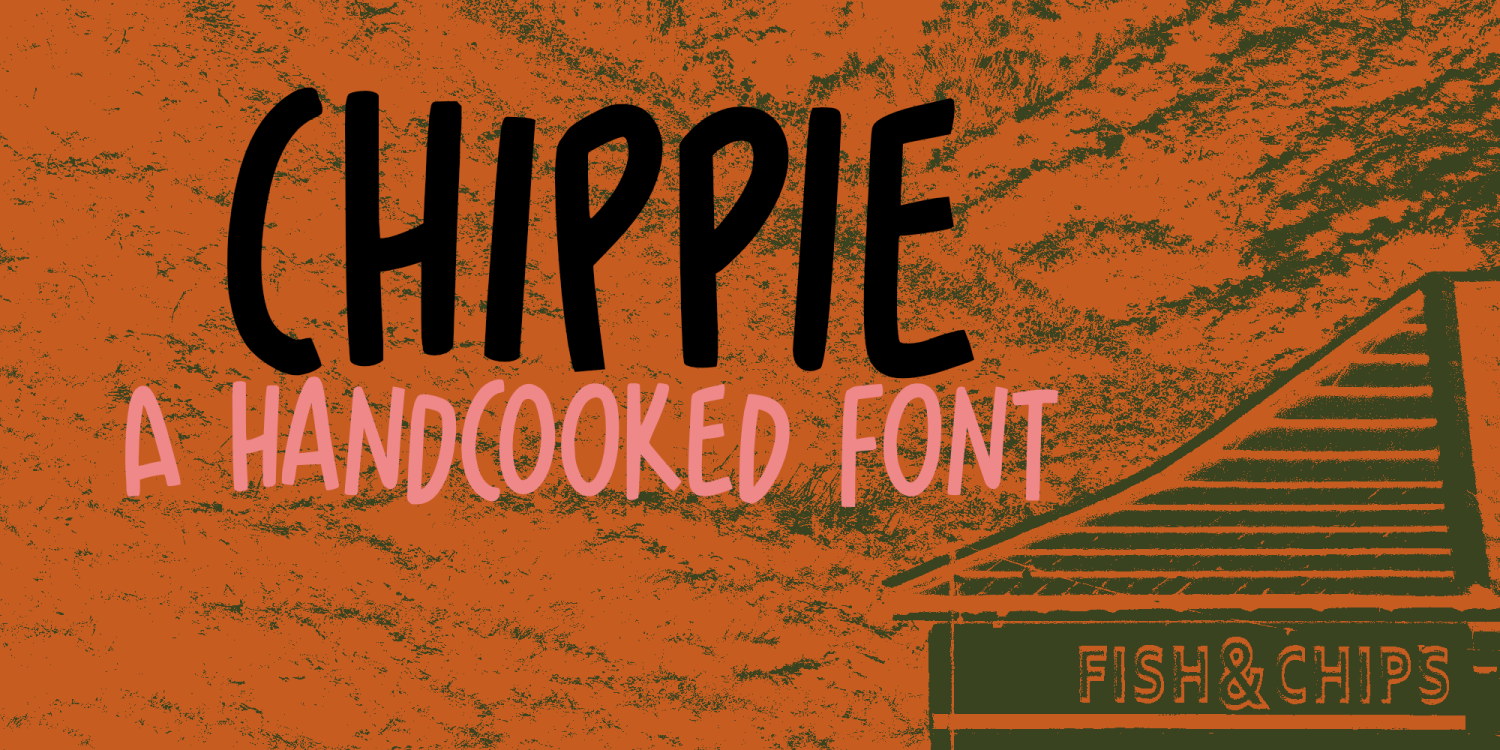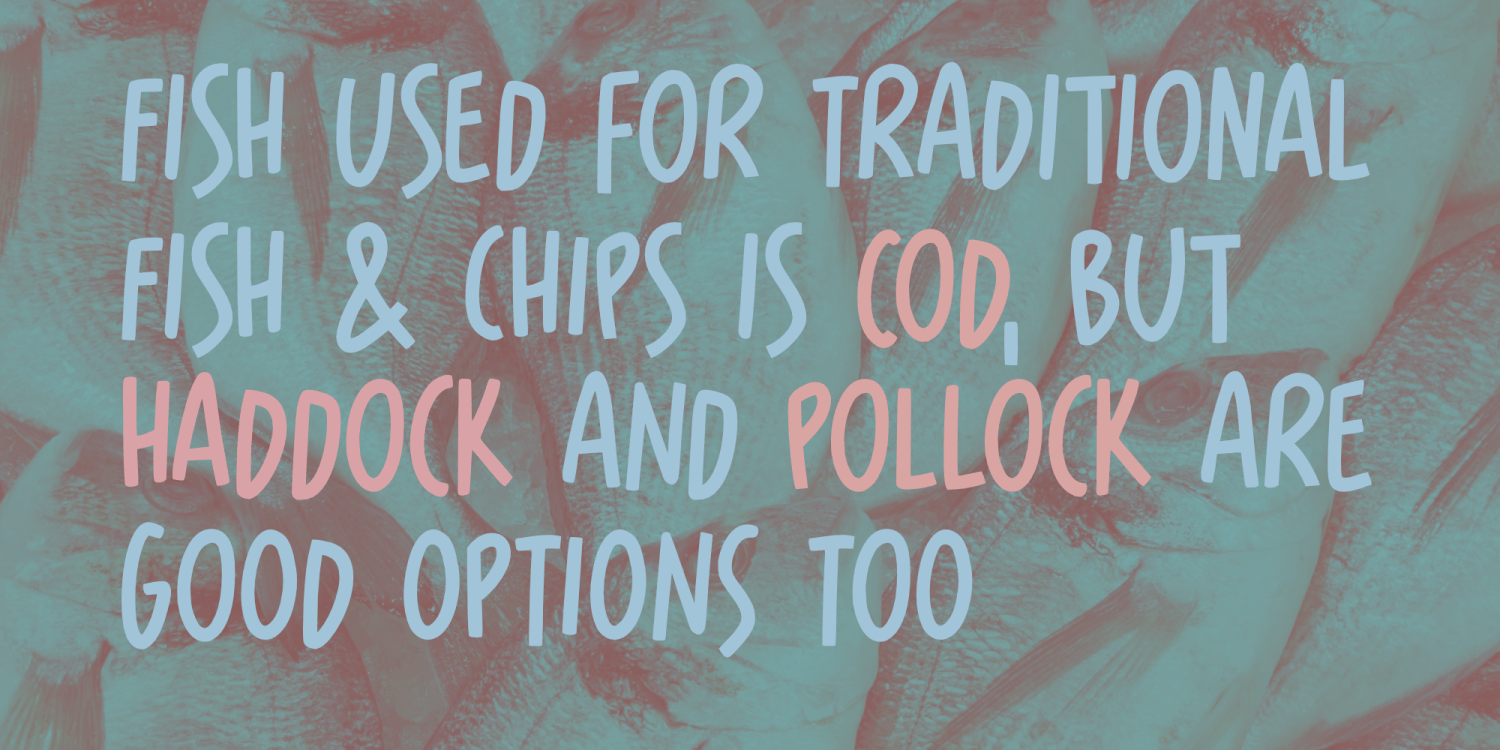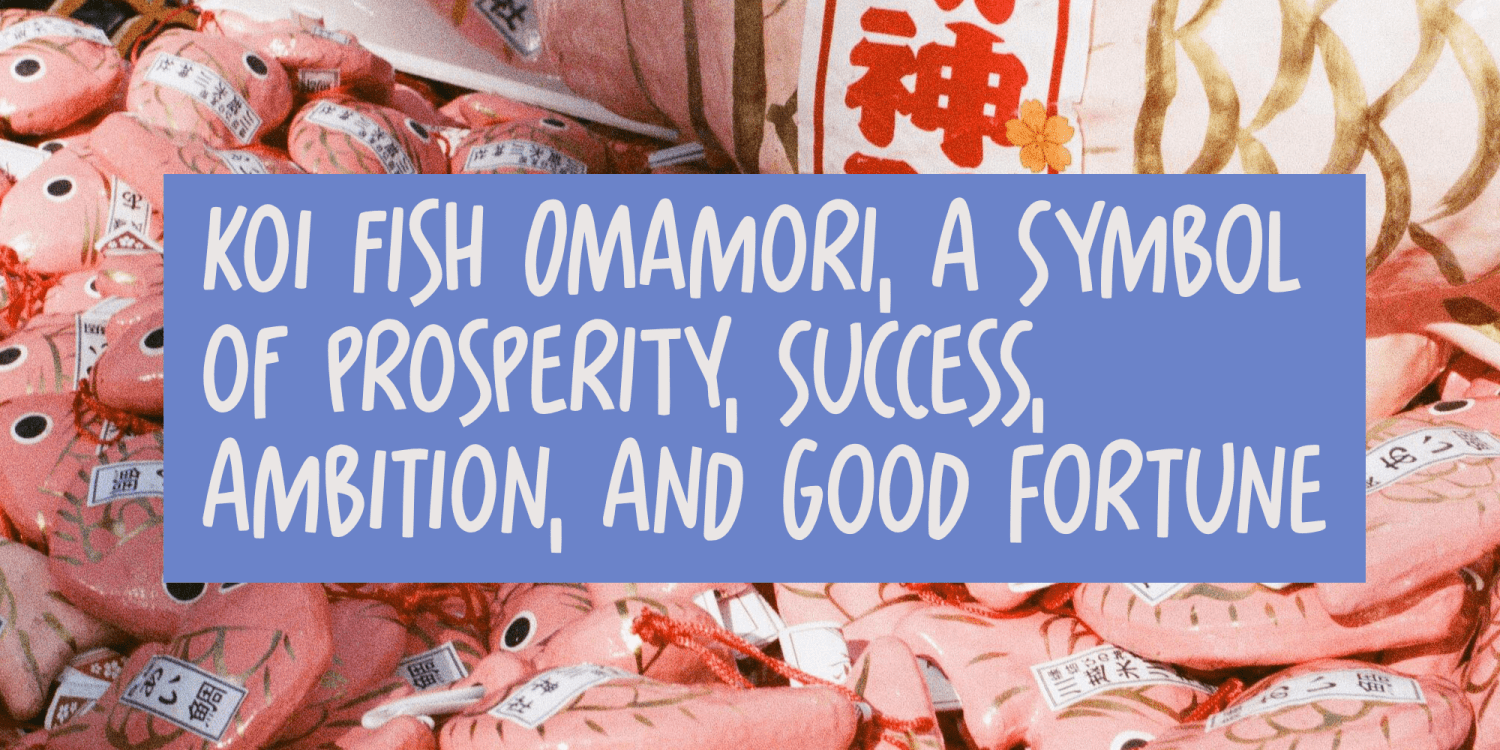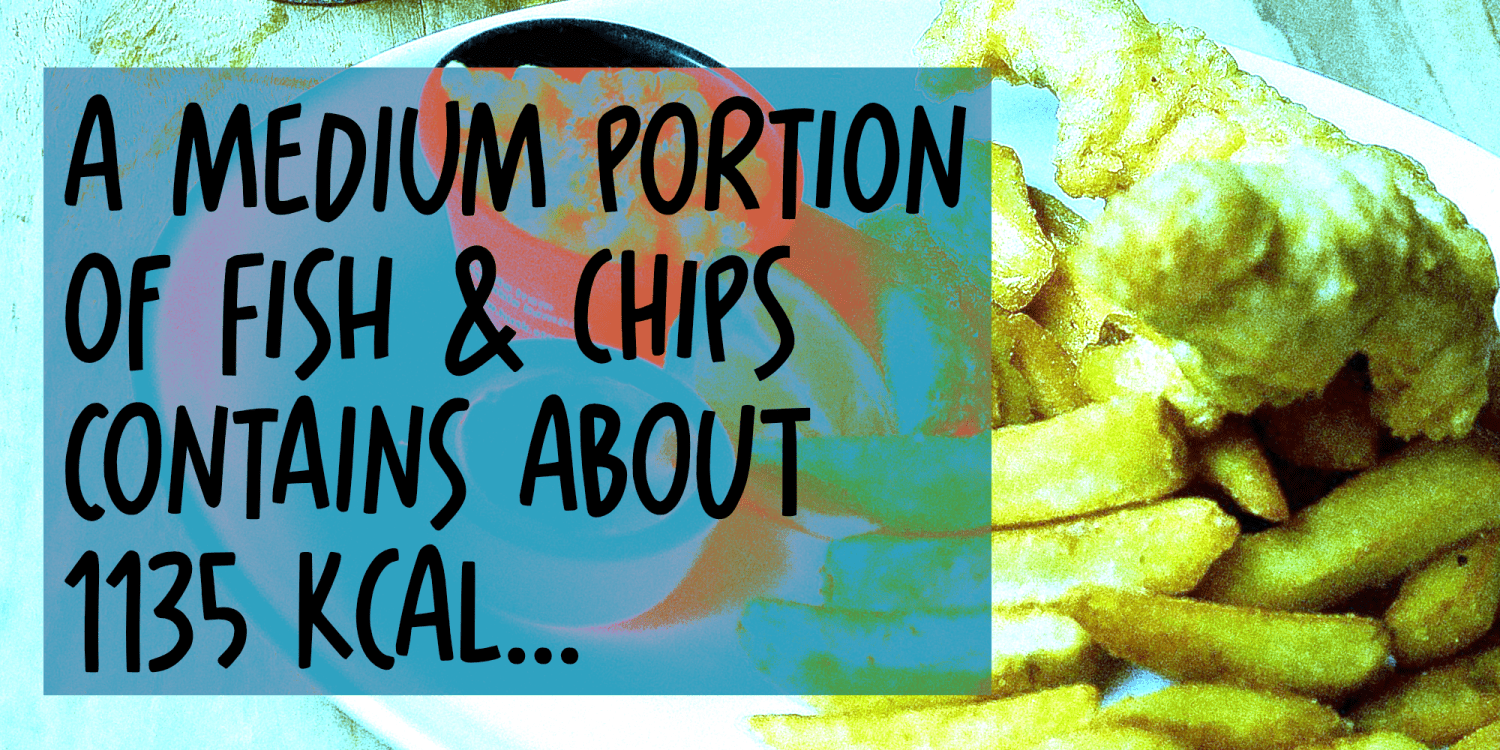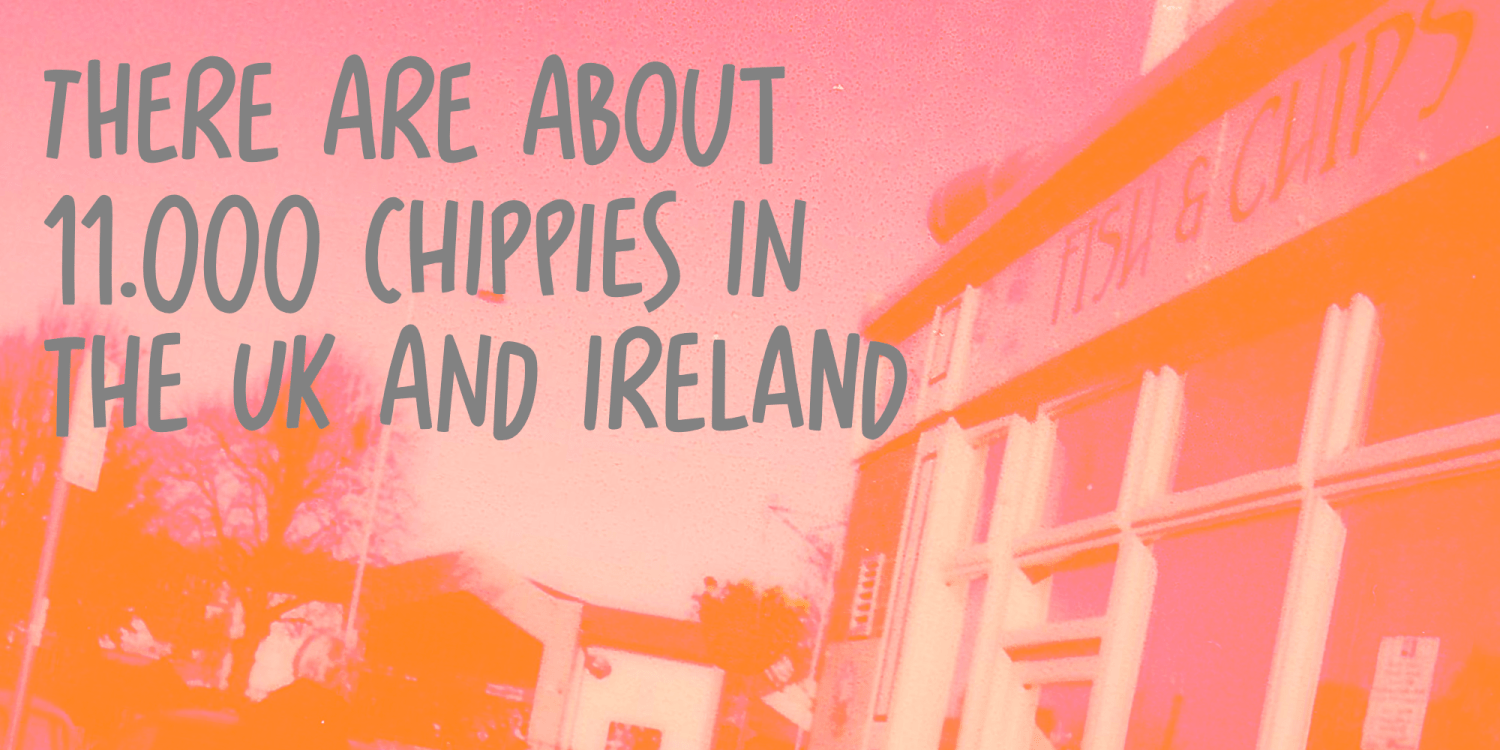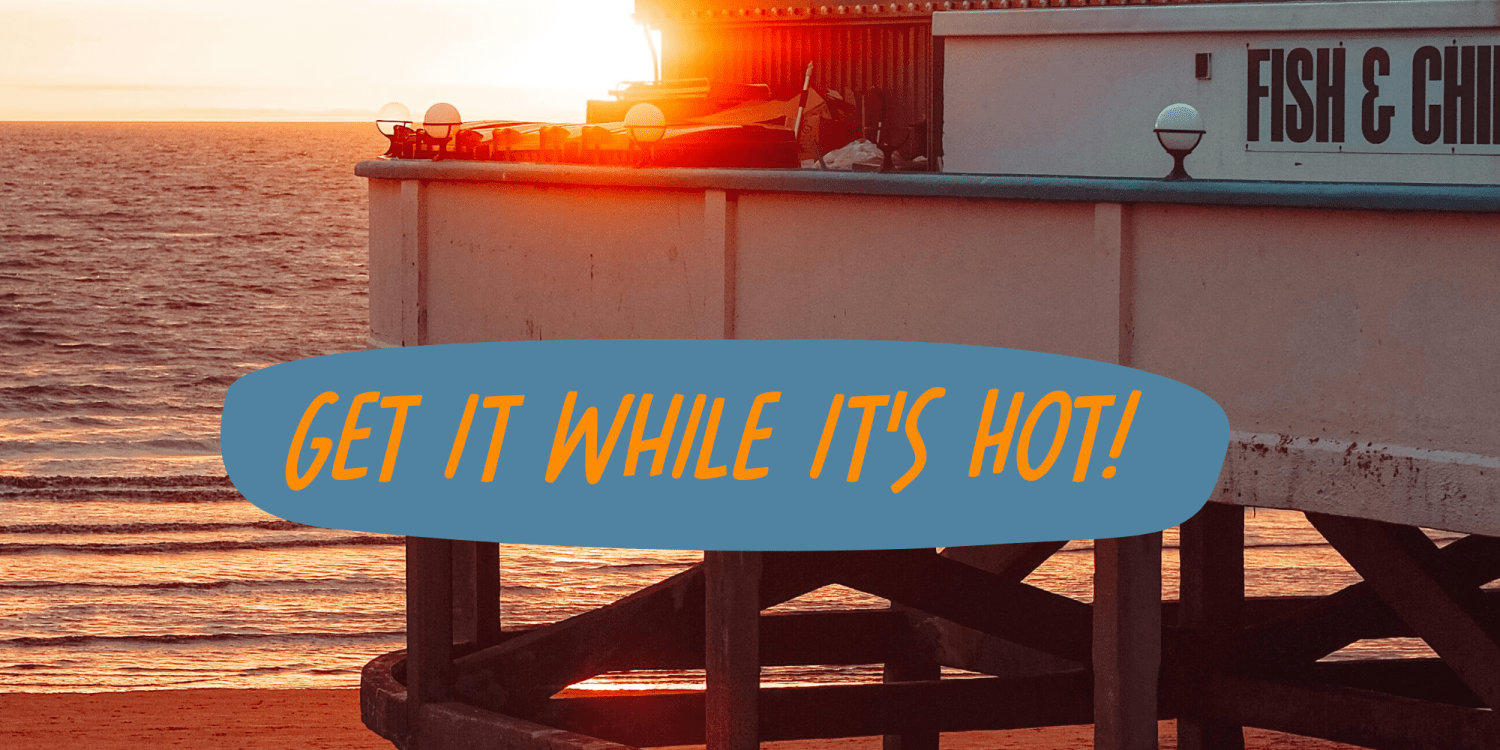
Chippie
Chippie is British vernacular for Fish & Chips Shop. There are about 11.000 of them scattered all over the UK and Ireland, so there’s no need to starve to death… ;-) My family and I will go on a cycling holiday in England this summer, so I booked a ferry to Harwich from Hook of Holland. Since we’ll be arriving in the evening, I also booked a pub slash campsite for the first night. I emailed them and asked if they were serving dinner as well (which they did), so I guess it’ll be fish & chips and a pint!
Chippie is a handmade font. It’s a bit cheeky, a bit wobbly, but there’s nothing fishy about it. Use it for your book covers, products and quite possibly the menu for your Chippie!
Chippie by Hanoded